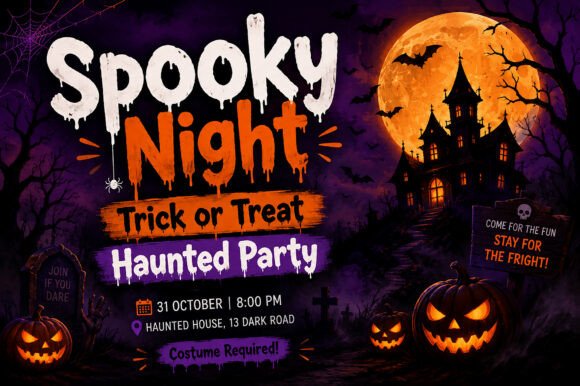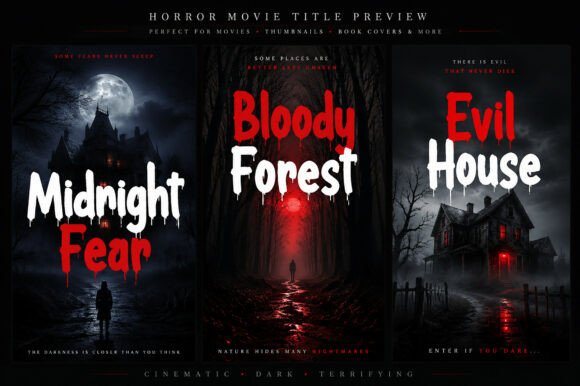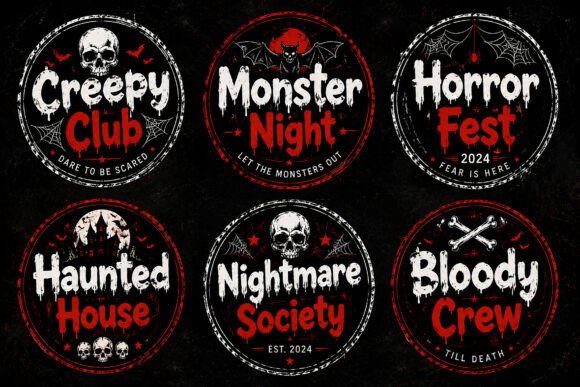
Introduction to Dripster Font
Dripster – Horror Dripping Display Font Description Dripster is a bold and terrifying horror display font featuring unique dripping letterforms inspired by blood, slime, melting wax, and classic Halloween aesthetics.
Designed to create an instant spooky atmosphere, this font is perfect for horror-themed projects, Halloween branding, movie posters, book covers, YouTube thumbnails, merchandise, stickers, logos, and creepy event promotions With its hand-crafted dripping details and bold character shapes, Dripster delivers a chilling visual impact while maintaining excellent readability.
Key Features of Dripster Font
Why Choose Dripster Font?